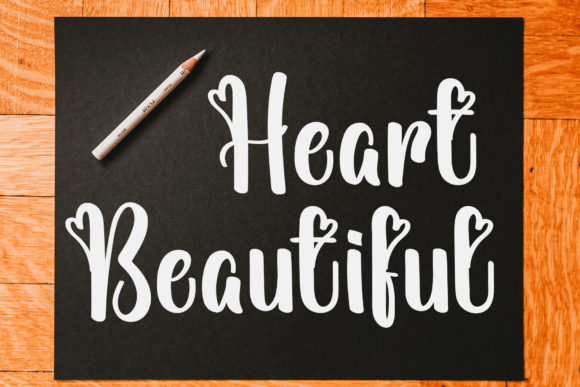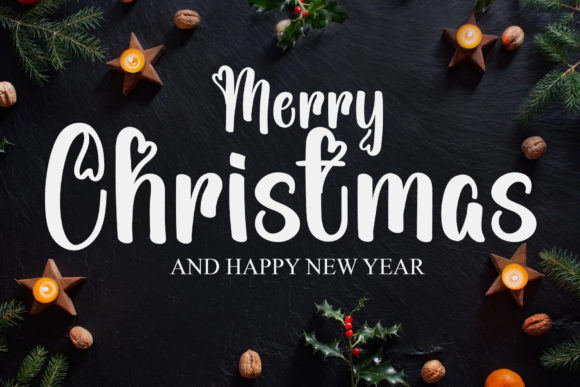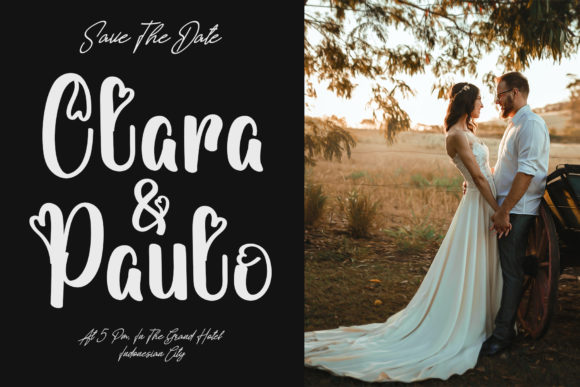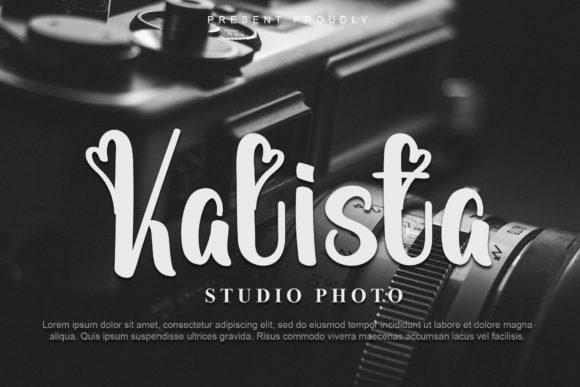
About Rinse Font
“Rinse” is a brushed, delicate, and stylish handwritten font that brings a touch of elegance and versatility to your design projects. Its unique brush-like strokes give it a natural and organic feel, while its refined and carefully crafted characters exude a sense of sophistication.
One of the standout features of “Rinse” is its adaptability. This font has the ability to seamlessly complement a wide range of design ideas, making it suitable for various creative projects. Whether you’re working on logos, branding, invitations, social media graphics, or any other visual content, “Rinse” can easily adapt and enhance the overall aesthetic.
The font’s delicate nature is further accentuated by its brushed appearance, which adds an element of handmade charm to your designs. This quality makes it an excellent choice for projects that aim to convey a sense of authenticity and craftsmanship.
“Rinse” is designed to bring a fun and adaptable touch to your creations. Its stylish handwriting style adds a personal and unique feel to your designs, helping them stand out and capture the attention of your audience. Whether you’re aiming for a modern and contemporary look or a more whimsical and playful vibe, “Rinse” can effortlessly accommodate your design vision.
In summary, “Rinse” is a versatile font that combines brushed elegance with delicate charm. Its adaptability, stylish handwritten appearance, and ability to add a touch of fun to your projects make it a valuable asset in your design toolkit. Use “Rinse” to create captivating and memorable designs that resonate with your audience and leave a lasting impression.